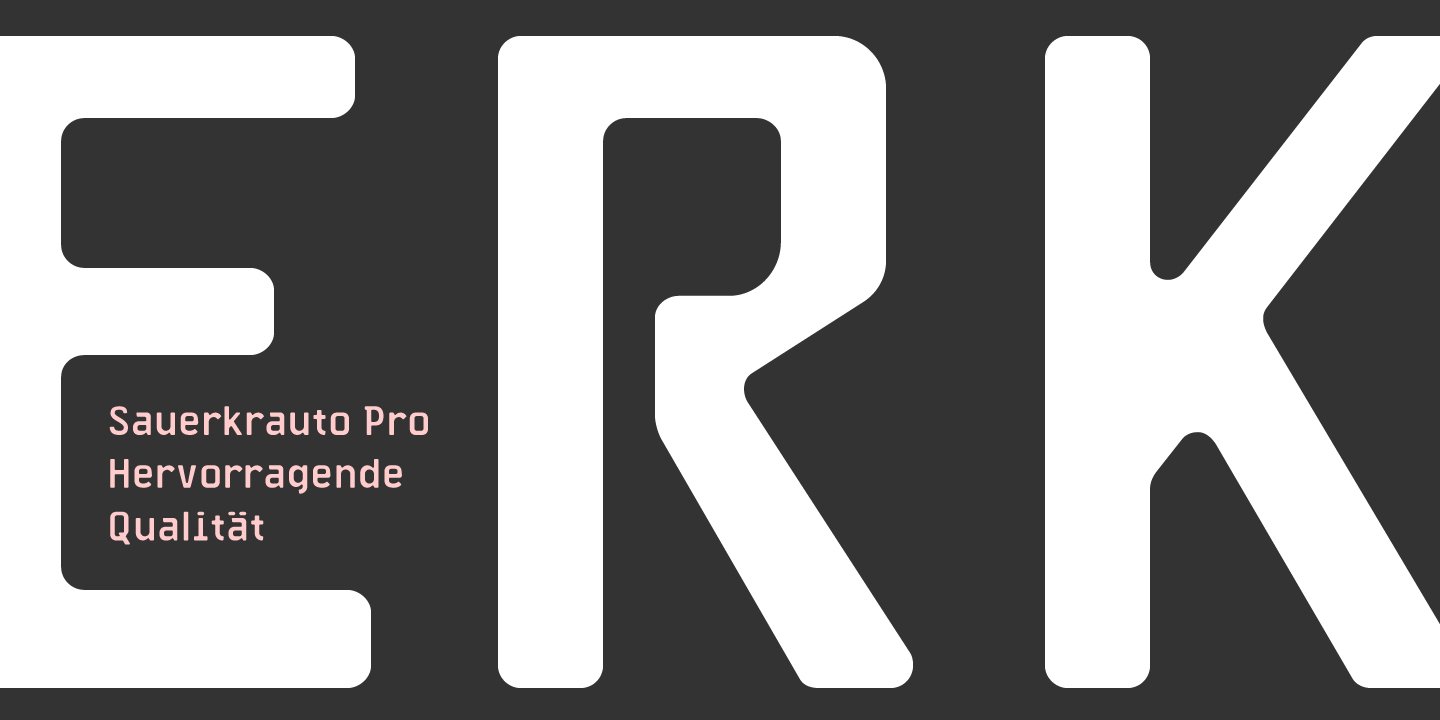
Sauerkrauto Pro Font Free Download is a bold and expressive typeface inspired by vintage German poster art, beer labels, and traditional signage. It's perfect for branding, brewery logos, menu designs, event posters, and editorial projects that demand personality and punch.
What makes Sauerkrauto Pro Font so exciting is its quirky charm and unique blend of old-world flair with modern design sensibilities. It stands out with strong, dynamic letterforms and eccentric character shapes that immediately grab attention and leave a lasting impression.
The Sauerkrauto Pro Font family includes a variety of styles such as Regular, Bold, and Shadow, giving designers tools to build layered, textured typography with depth and style.
Whether you're crafting a bold festival poster, designing artisanal product packaging, or giving your branding a flavorful edge, Sauerkrauto Pro Font Free Download delivers character in every letter. It’s available for free testing, but a license is required for commercial use. Let Sauerkrauto Pro add a unique twist to your next visual recipe.